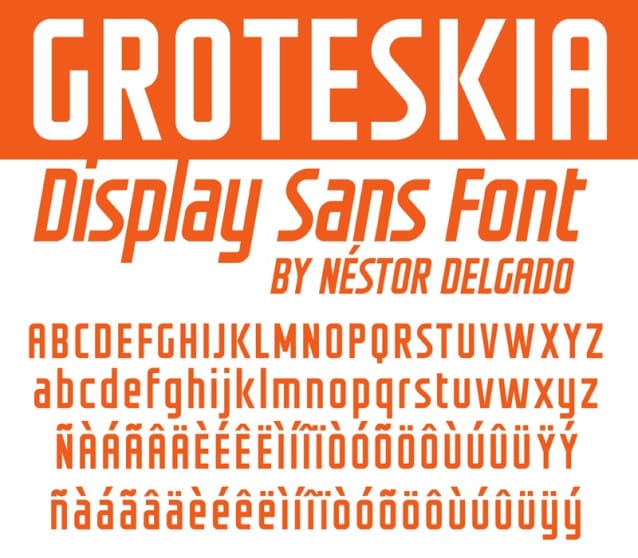
Groteskia Font is a simple font made for use in small sizes. Ideal for logos, handwritten quotes, product packaging, header, poster, merchandise, social media & greeting cards.
| Designer Name: | Néstor Delgado |
| Classification: | Display Fonts, Sans Serif Fonts |